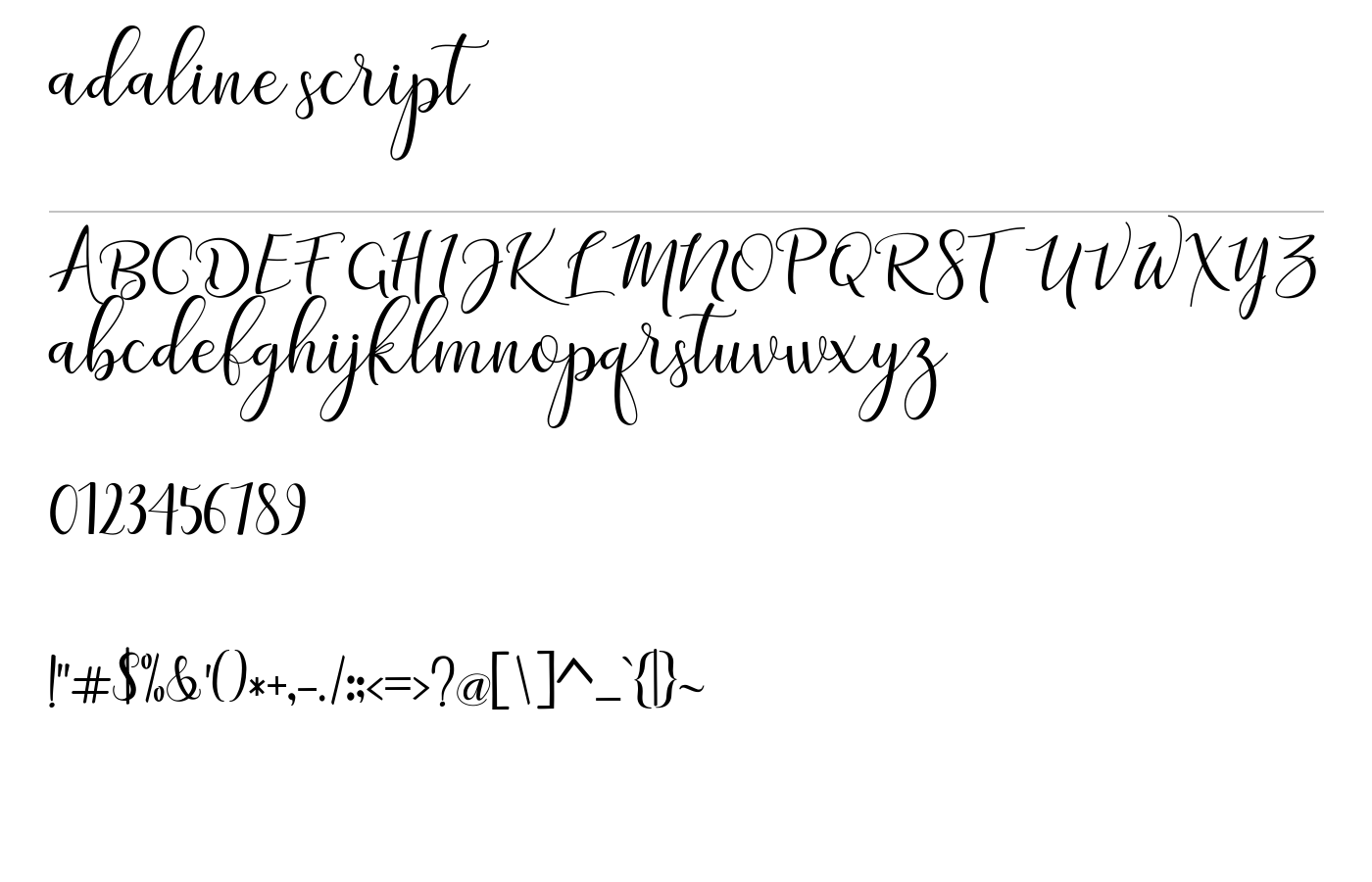
Adaline Script is an elegant and flowing script font with delicate, high-contrast strokes that give it a refined and graceful appearance. Its tall, slightly condensed letterforms with looping details create a sophisticated yet approachable feel, perfect for wedding invitations, branding, and stylish editorial designs. This font excels in contexts that require a touch of elegance and personal flair, making it ideal for luxurious and artistic projects.
adaline script Font
About adaline script Font